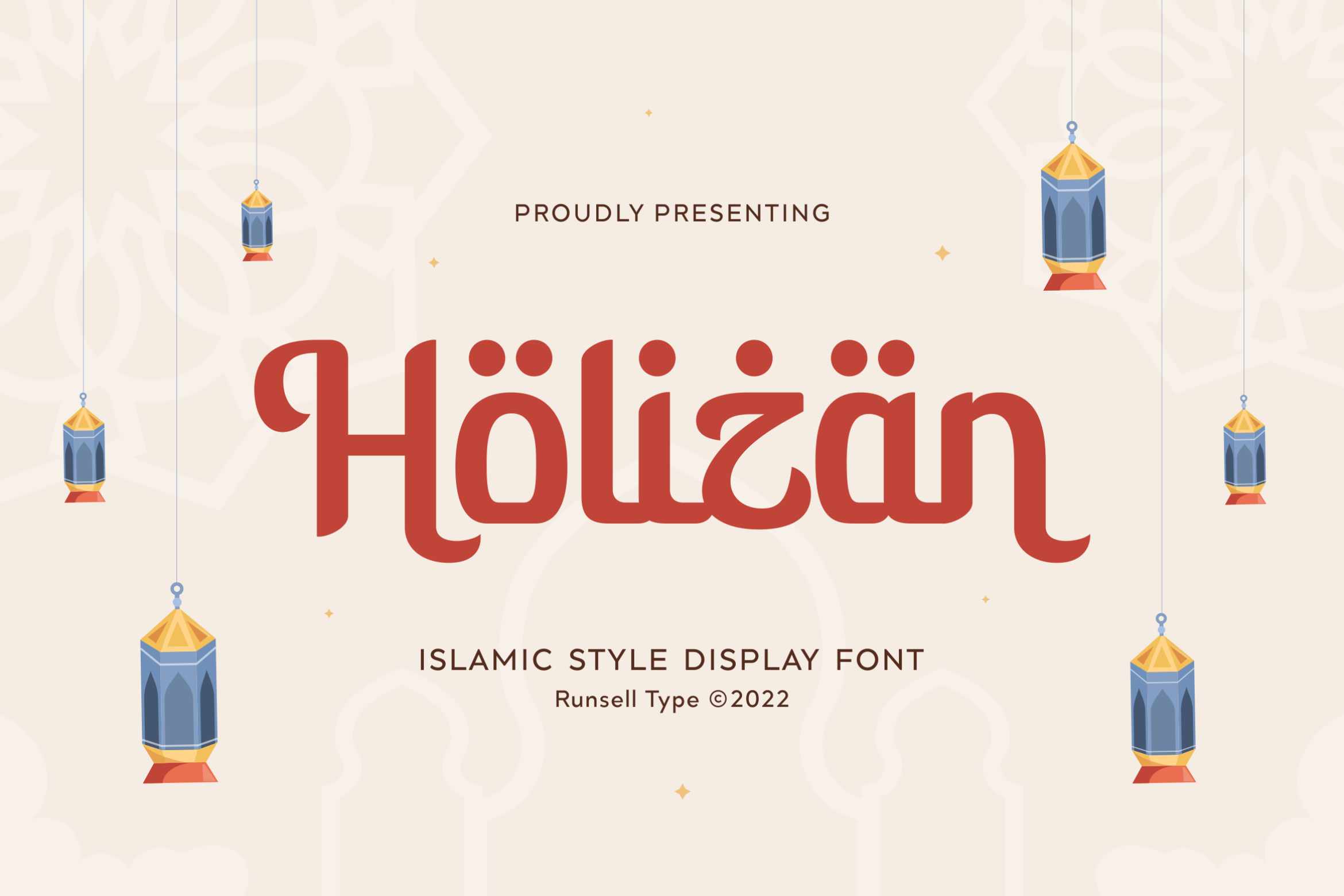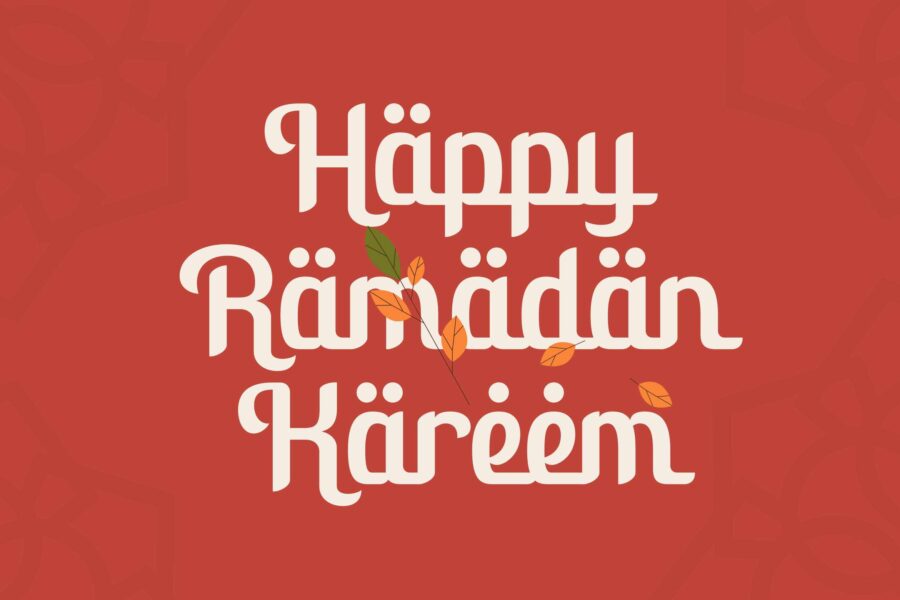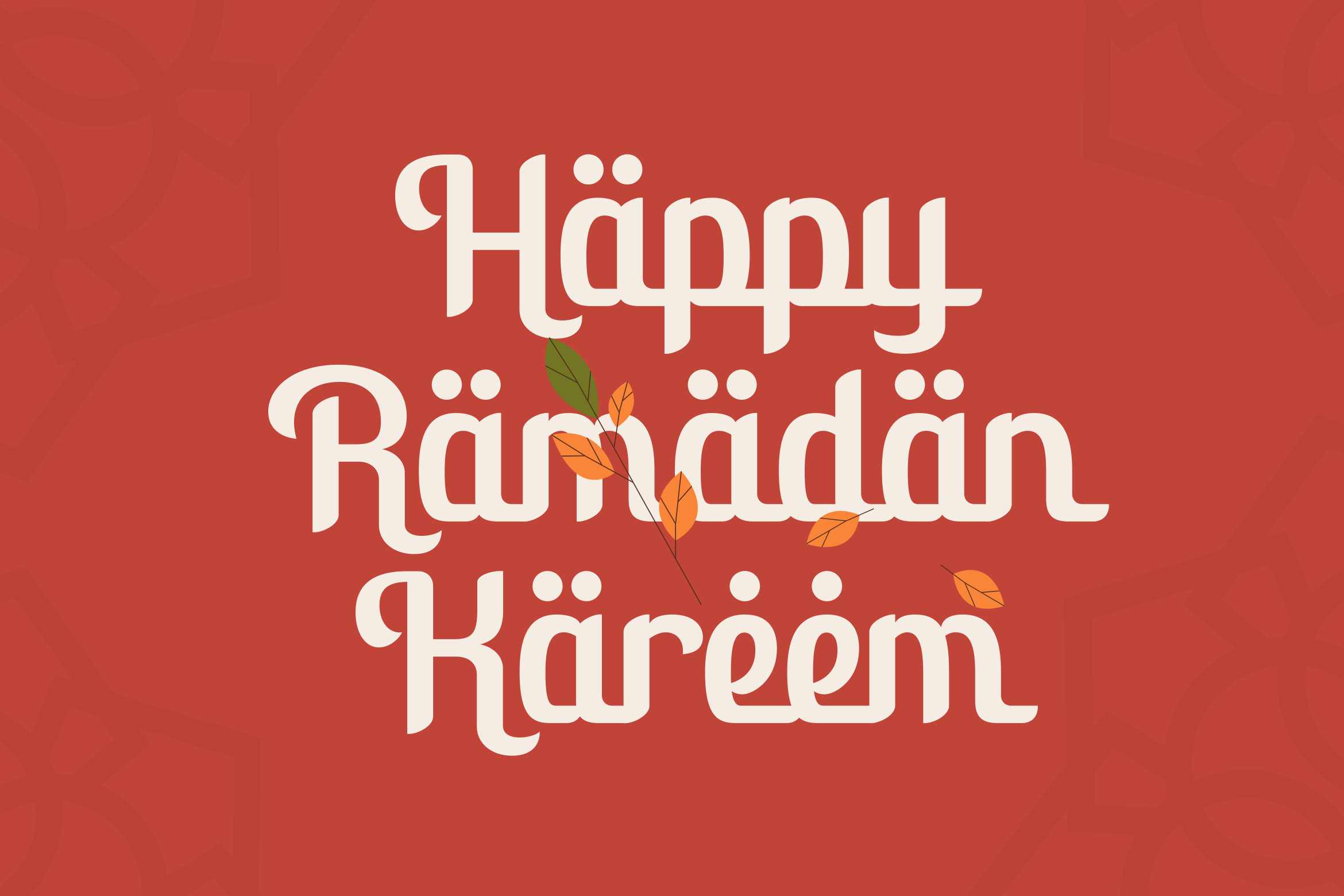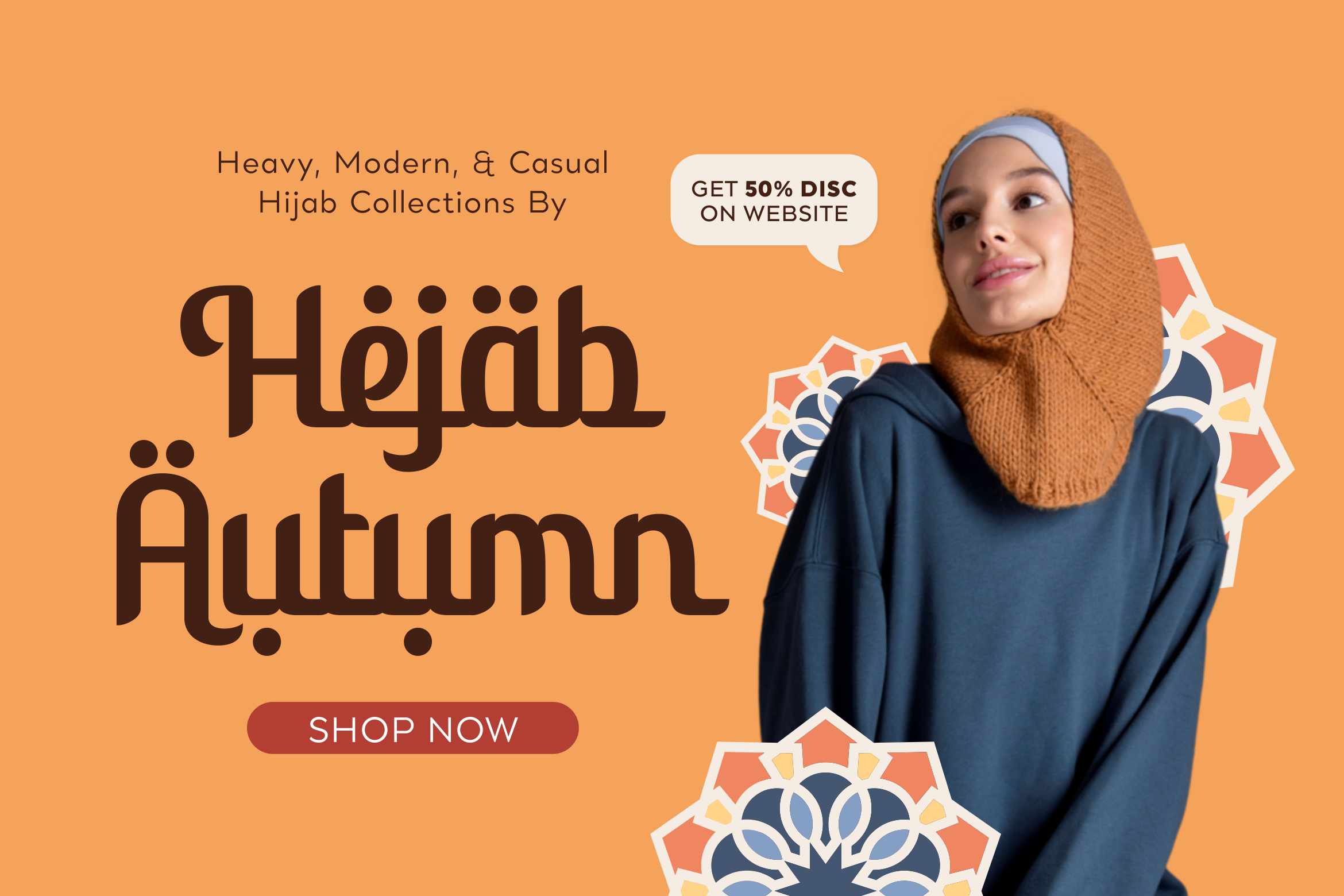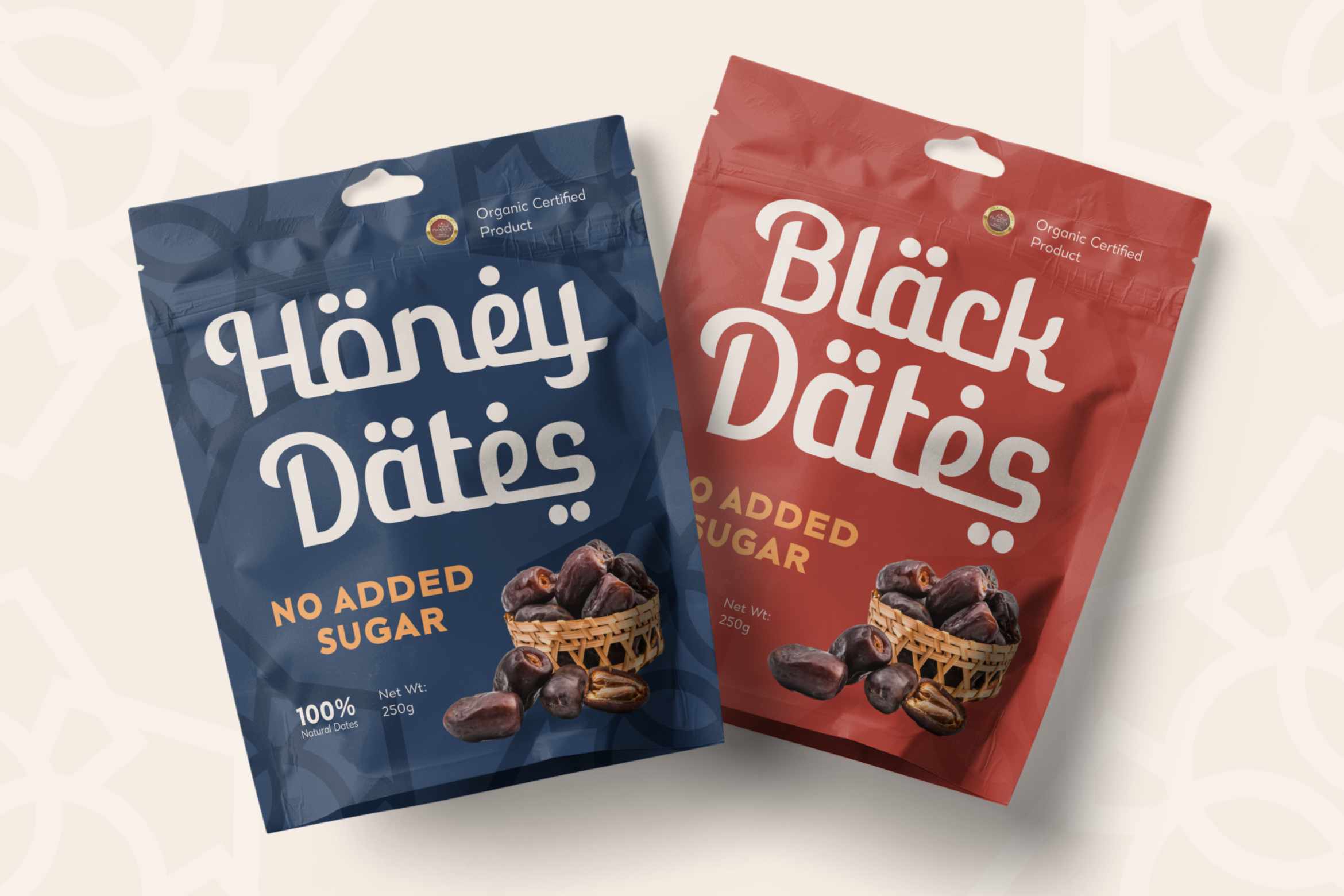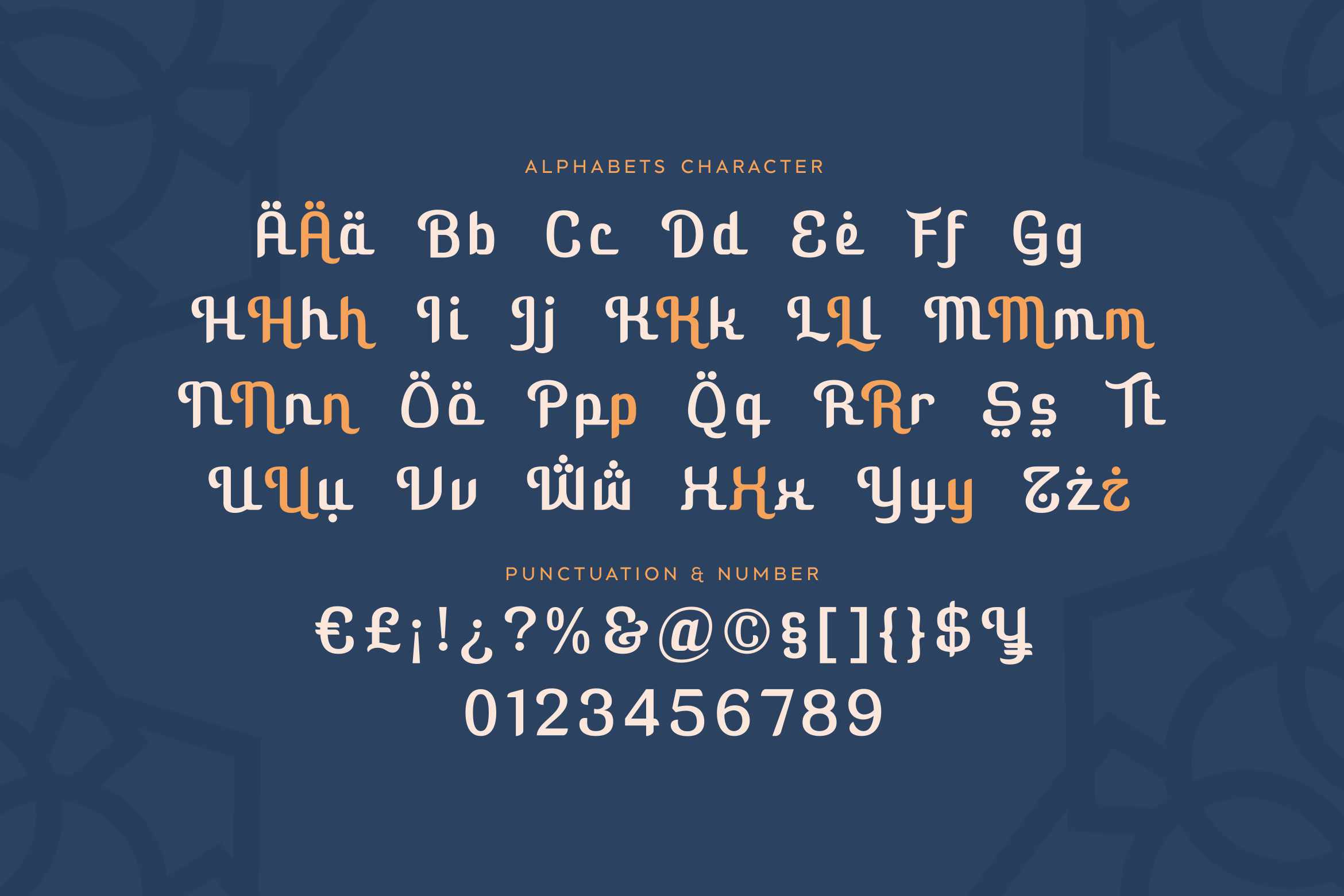
Holizan is a modern Islamic-style display font that harmoniously blends geometric precision with warm, approachable curves. Inspired by Arabic script aesthetics, it integrates rounded terminals and subtle calligraphic strokes, making it perfect for contemporary Ramadan promotions, halal product packaging, or hijab fashion branding. The font’s unique diacritic styling and elegant alternates offer visual richness that remains highly readable.
With a full set of uppercase, lowercase, alternates, punctuation, and numerals, Holizan is versatile for both print and digital use. Whether used for festive greetings, product labels, or identity design, Holizan adds a soft, cultural elegance that’s both modern and spiritually resonant. Ideal for creative professionals looking to inject Middle Eastern flair with a fresh typographic voice.
Holizan